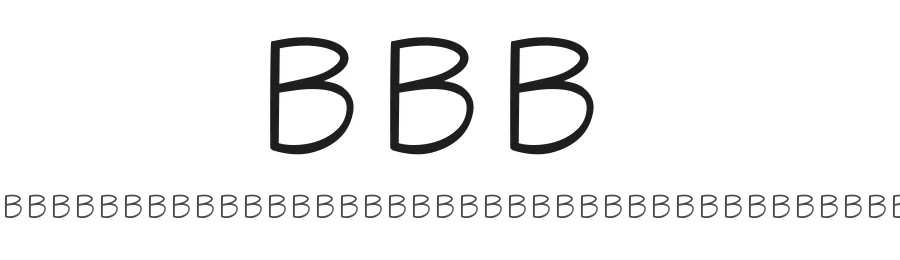
About Gaelling 2 Font
Gaelling 2 is a script & handwritten font designed by Gaelleing. It includes 66 glyphs, a medium weight, TTF (TrueType) format, and 89 languages. Gaelling 2 is free to download; check the license details on this page before commercial use. Script & handwritten fonts like Gaelling 2 work best for wedding invitations, greeting cards, signatures, and elegant branding.
Gaelling 2 Font is a script font that shines as a display or heading face. Pair it with a clean sans-serif or serif font for body text β the contrast creates a clear hierarchy while the two styles stay balanced and easy to read.
Gaelling 2 Font
by Gaelleing